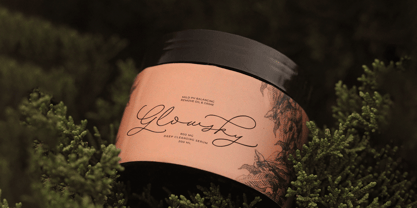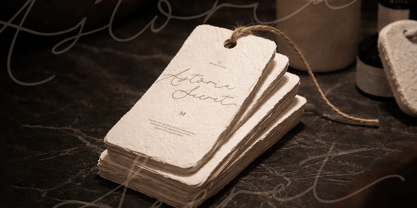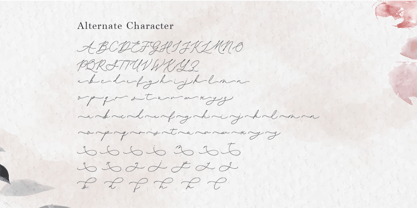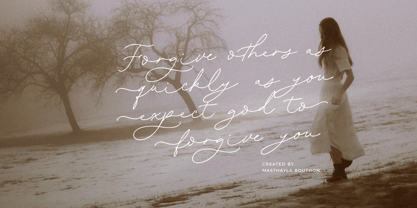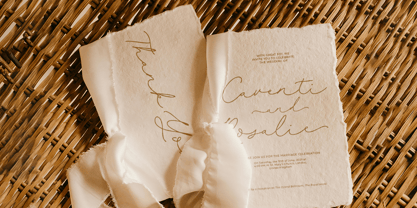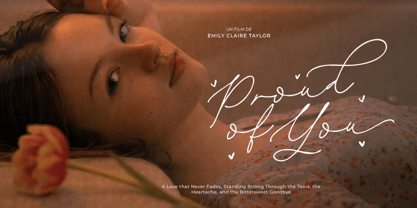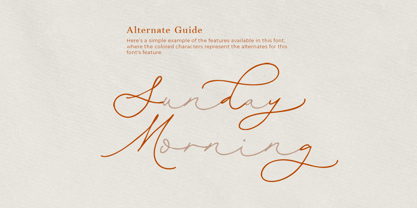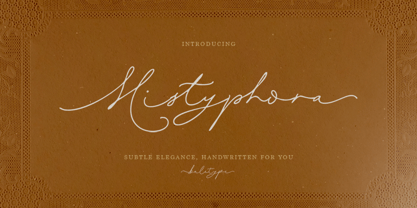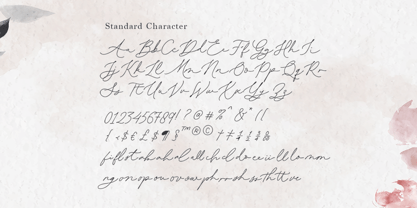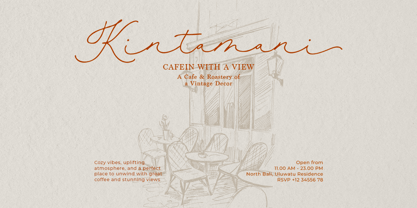
Mistyphora
by Bale Type
The Mistyphora Font Family was designed by Dzikrul Aulia and published by Bale Type. Mistyphora contains 1 styles. More about this family
Mistyphora is an elegant handwritten script font featuring stylish alternates and beautiful ligatures that add a natural, flowing touch to any design. Its graceful letterforms make it perfect for a wide range of creative purposes, including logos, branding, quotes, packaging, and especially wedding invitations or other romantic stationery. The font also includes attractive terminal and ending swashes that help create a more sophisticated and eye-catching look, allowing your projects to appear more refined and stunning. Designed with versatility in mind, Mistyphora blends modern elegance with a handwritten feel, making it suitable for both formal and contemporary designs. In addition, this font supports multiple languages, ensuring it can be used comfortably in various international design projects.
Designers: Dzikrul Aulia
Current Foundry: Bale Type